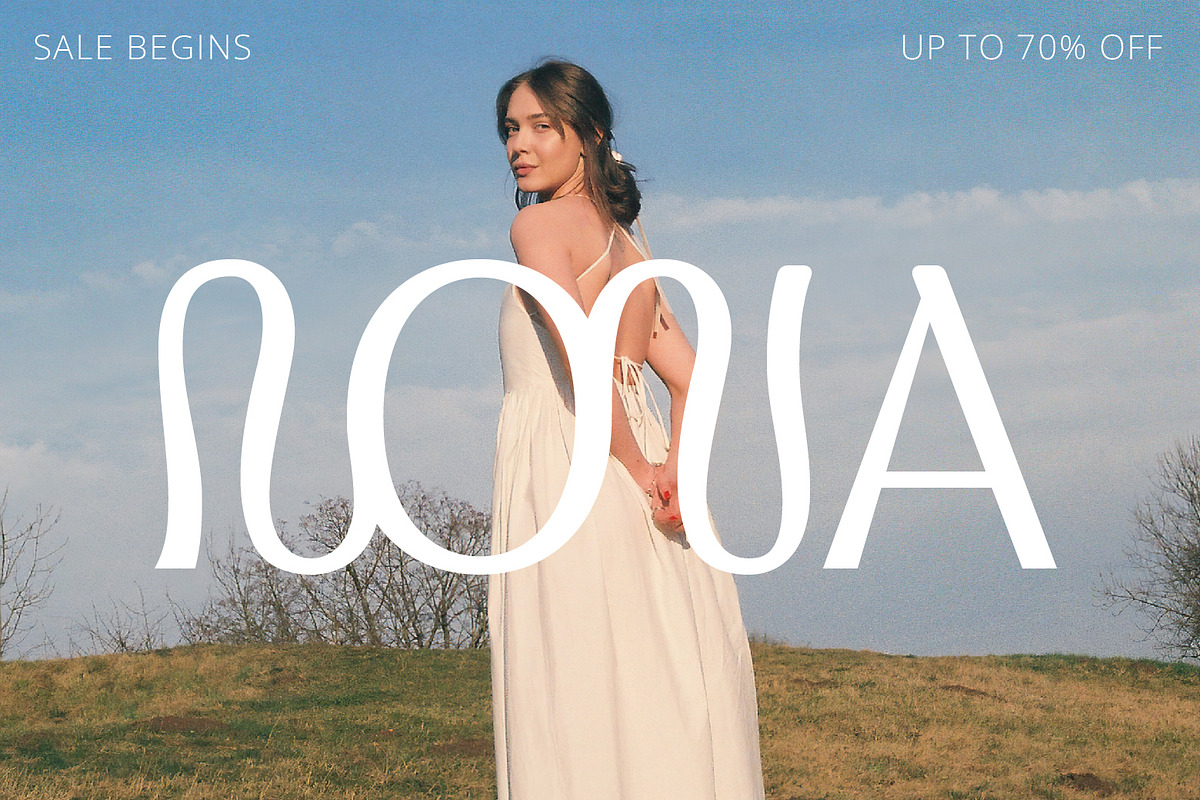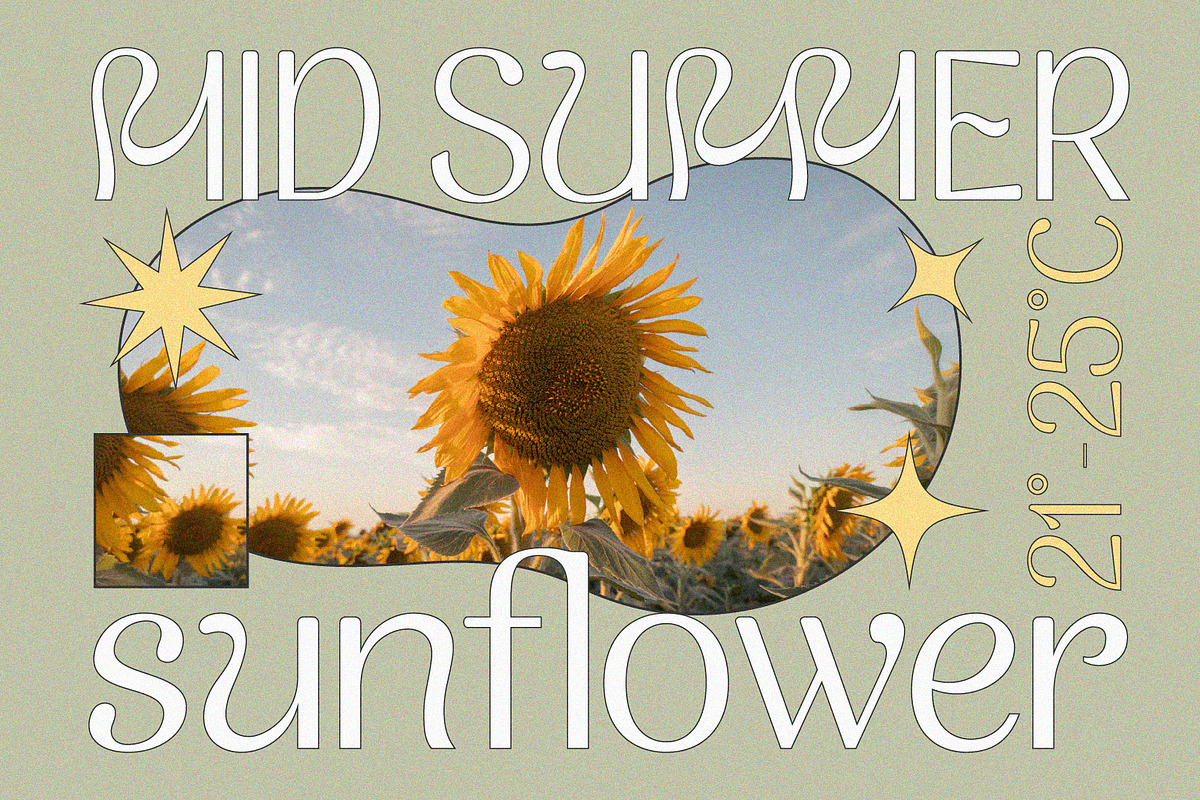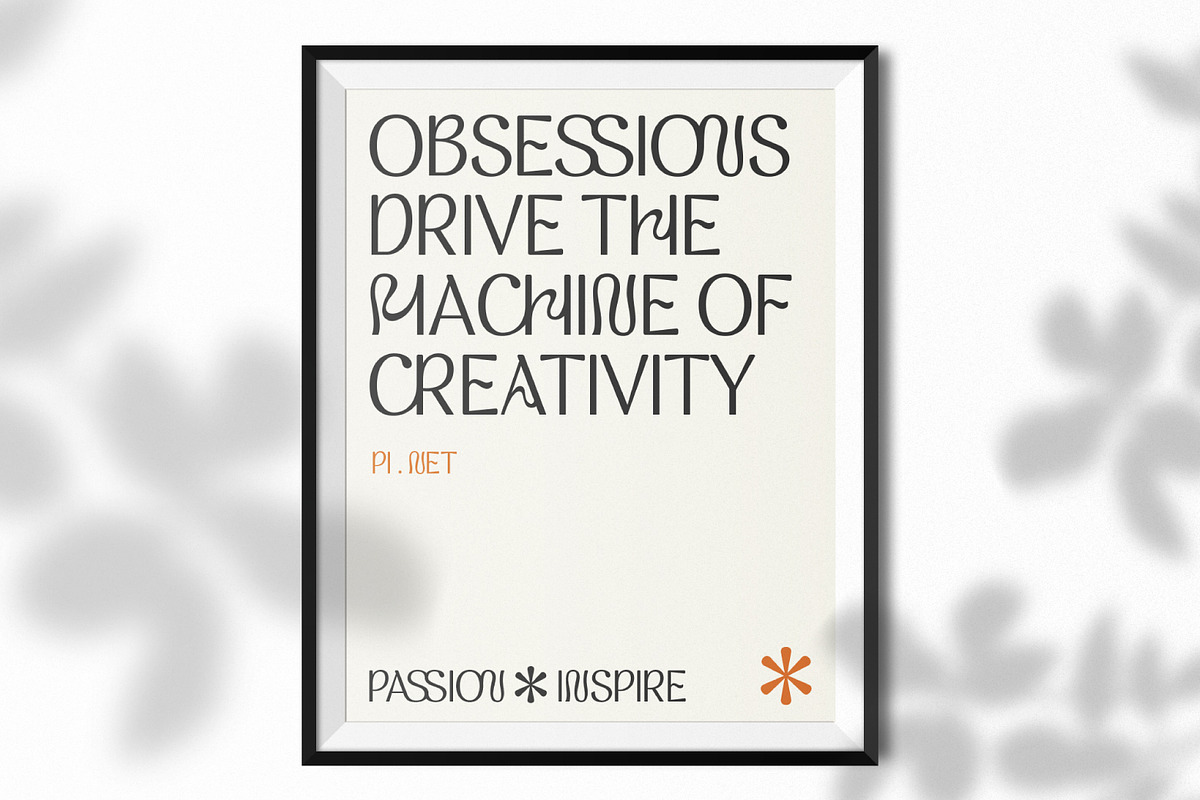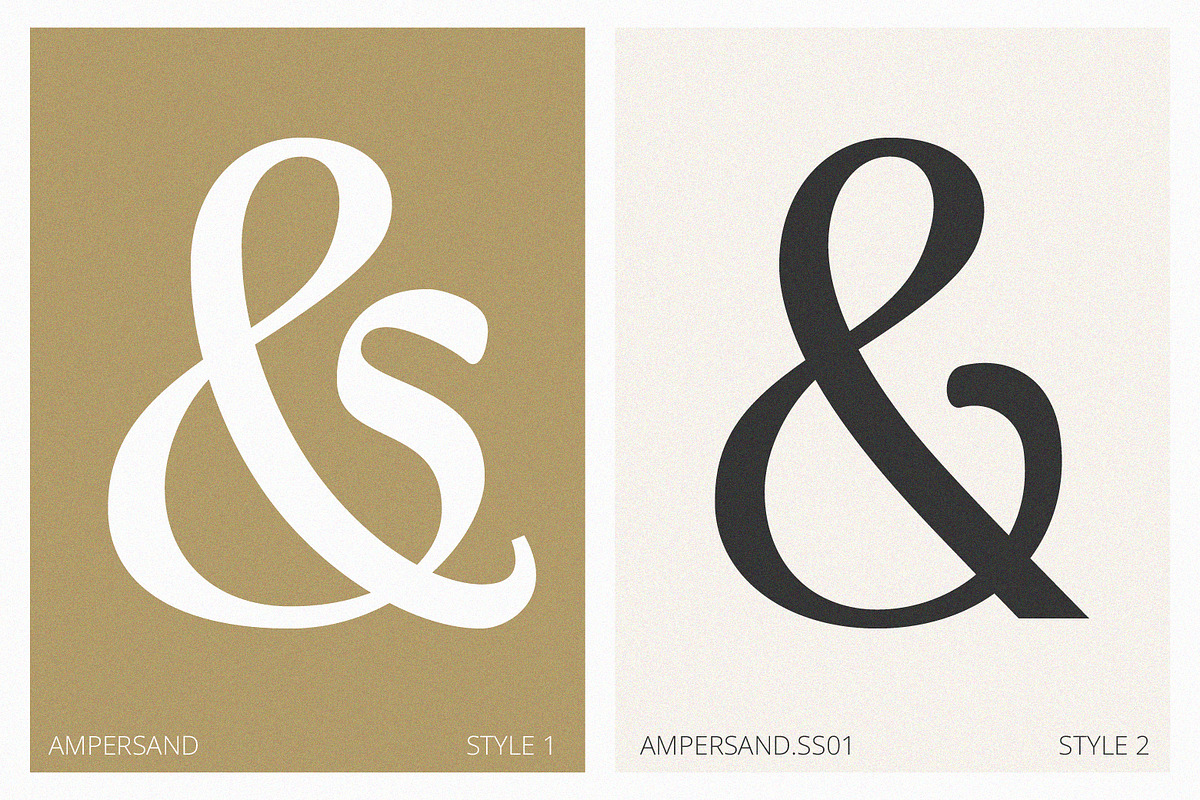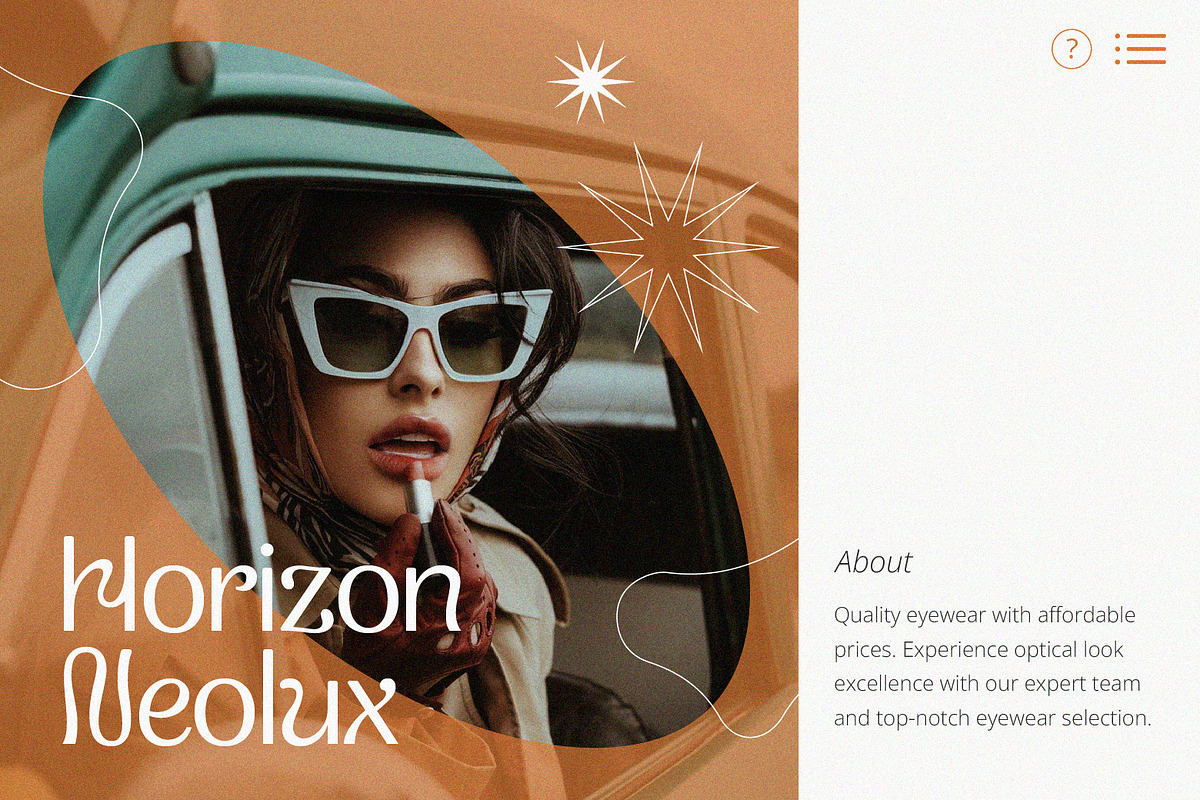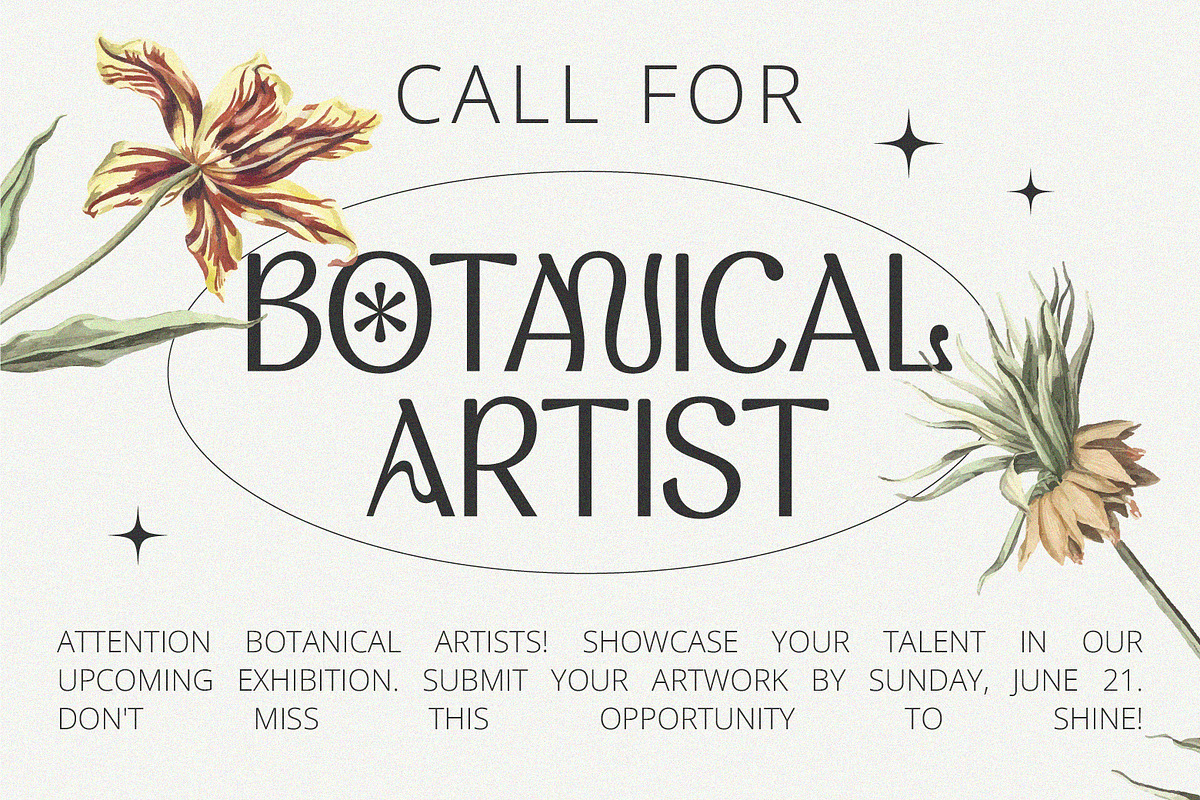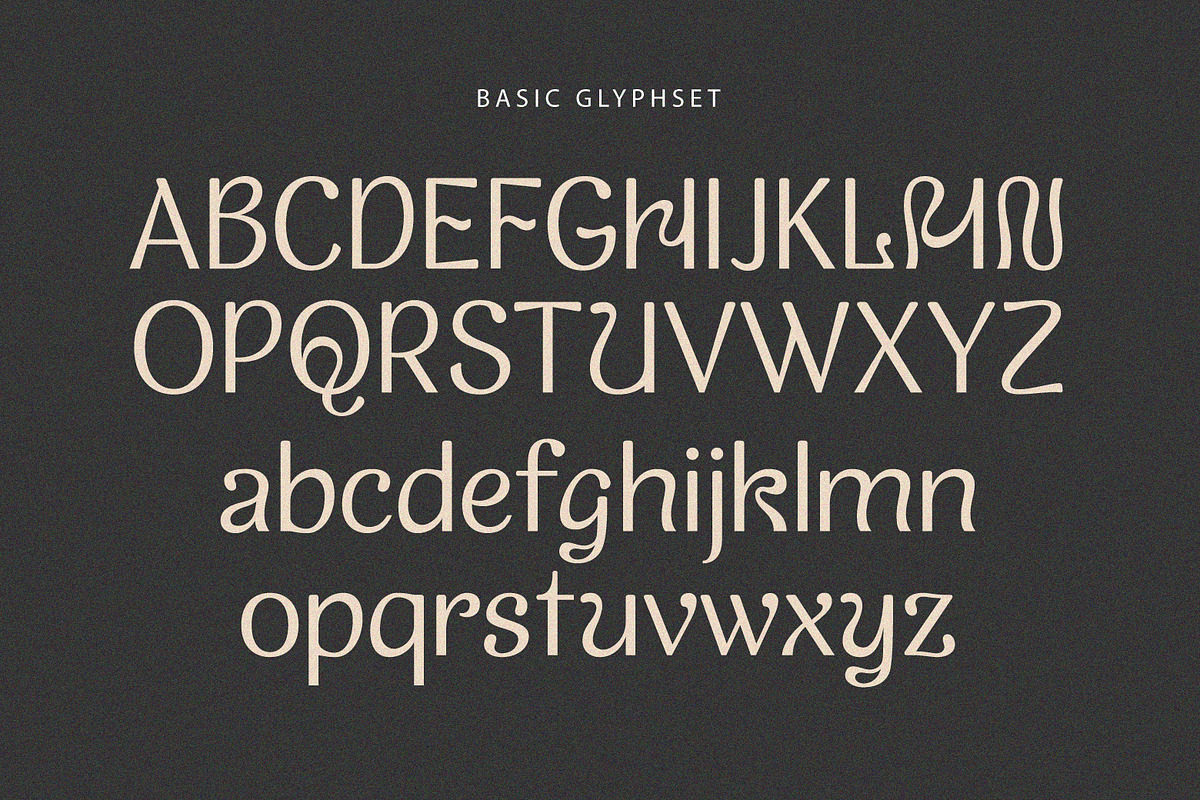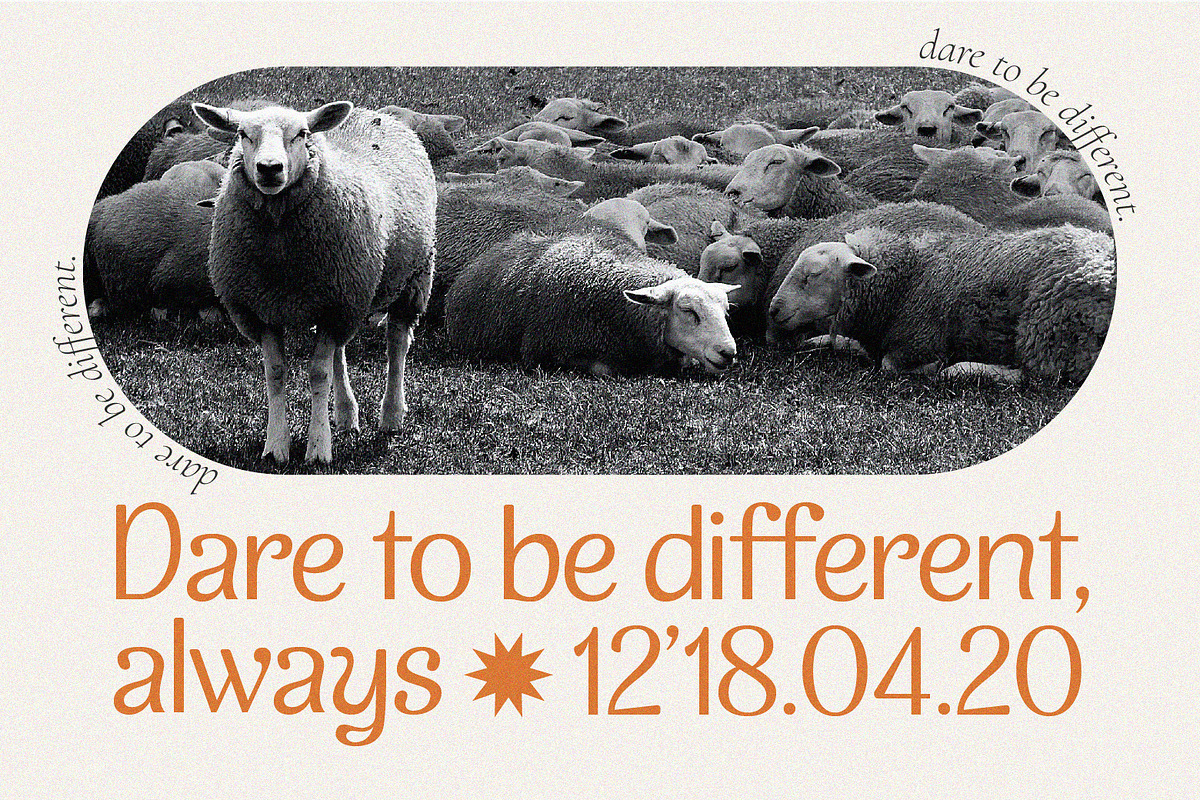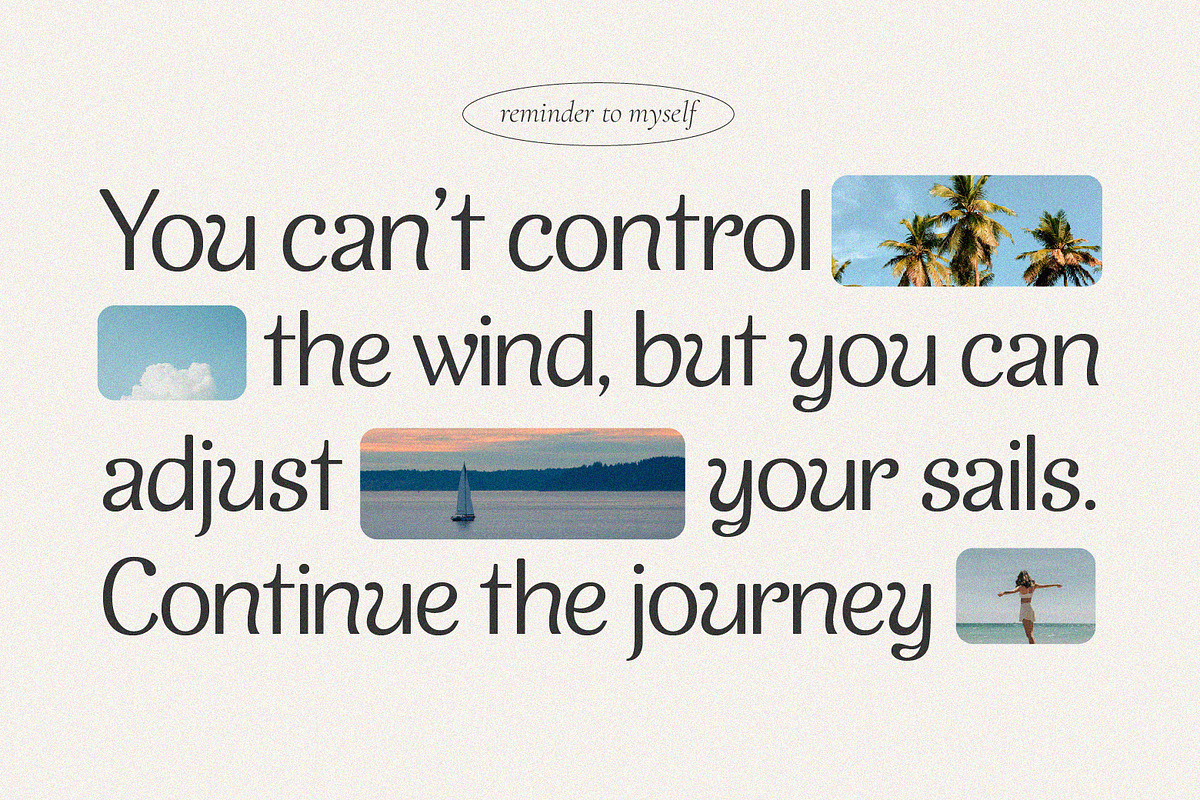
Bliss Mood | Stylized Typeface
Bliss Mood is a display experimental sans font. Each character is a captivating fusion of geometry, fluidity, and abstract artistry. Unleash your imagination and redefine your visual narrative with this experimental font. Whether it's a logo, a captivating poster, or a professional presentation, this font adapts seamlessly to bring your creative vision to life.